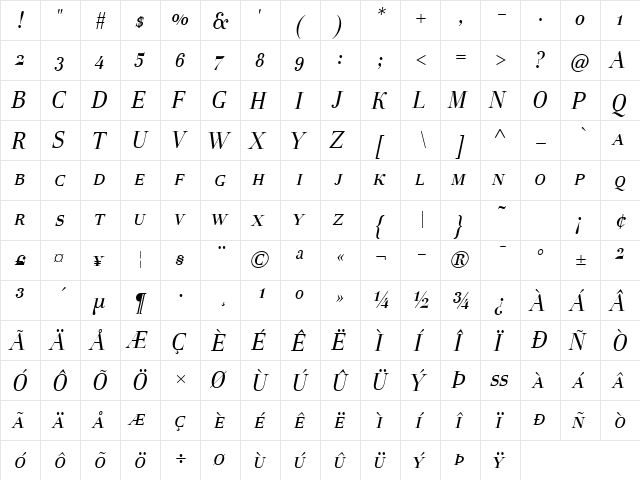
Holmen-RegularItalicSC Regular
| Foundry | FSI FontShop International GmbH |
| Designer | Per Jorgensen |
Design Context for Holmen-RegularItalicSC Typeface
Holmen-RegularItalicSC is a composed and adaptable typeface that performs quietly and consistently across a wide range of design contexts. The slanted form adds forward momentum and visual energy.
Pro Tip: Try Holmen-RegularItalicSC for annotation and caption copy alongside an upright companion — the contrast in angle creates a dynamic but ordered typographic system.